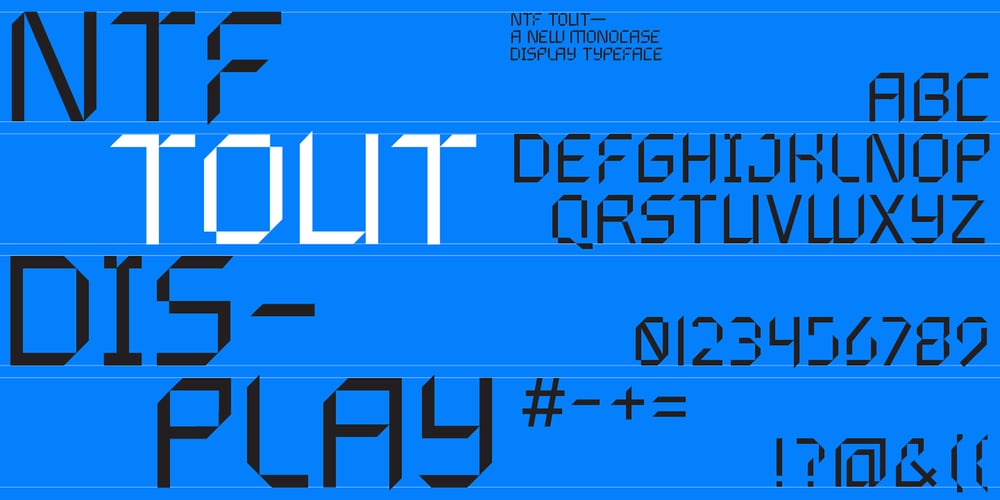
NTF Tout Font Family was designed by Nick Barry and published by Noble Type Foundry. NTF Tout contains 1 styles and family package options. A new experimental display typeface from Noble Type Foundry. Inspired by the hard 45 degree cuts of traditional blackletter type but simplified for a digital age, this unique evolution commands a strong geometric presence in any design.